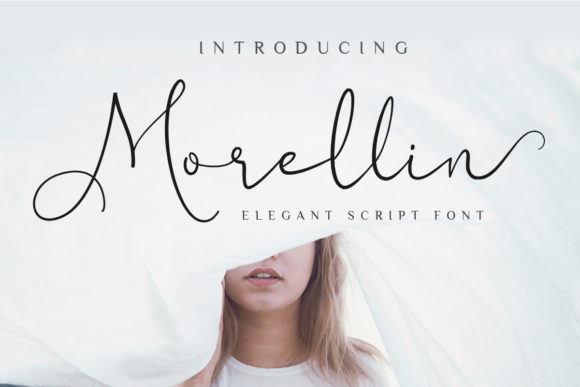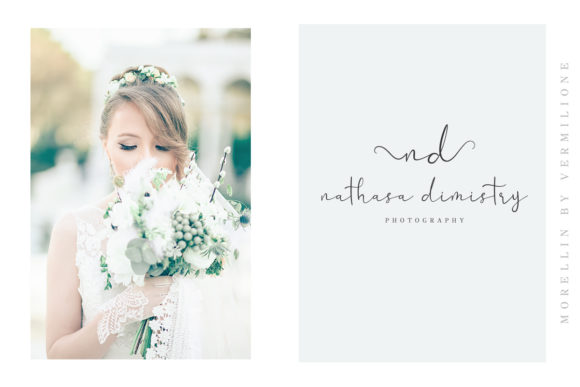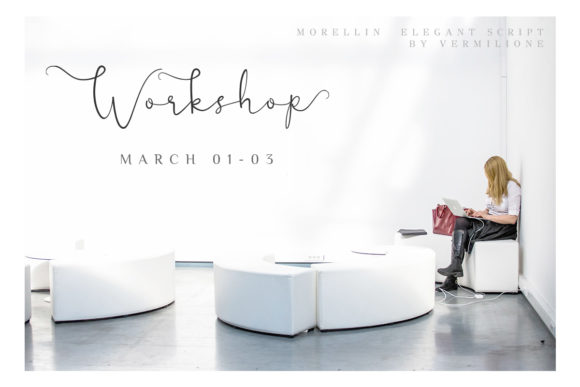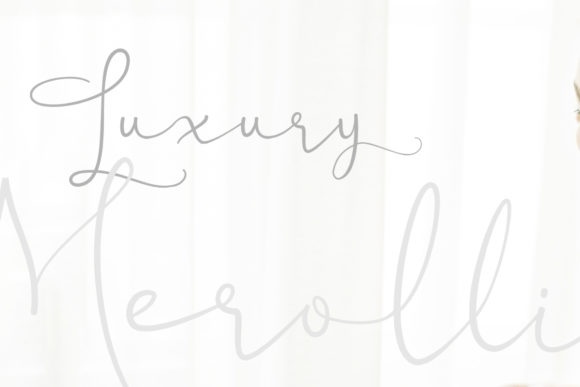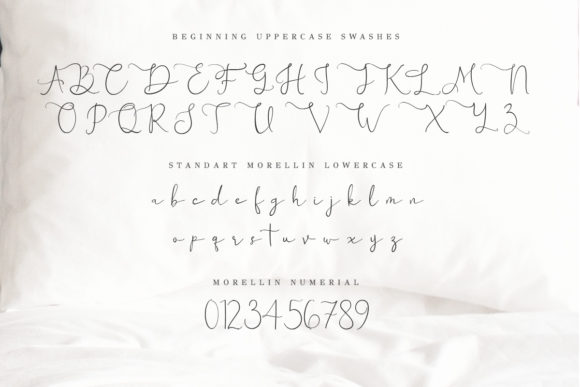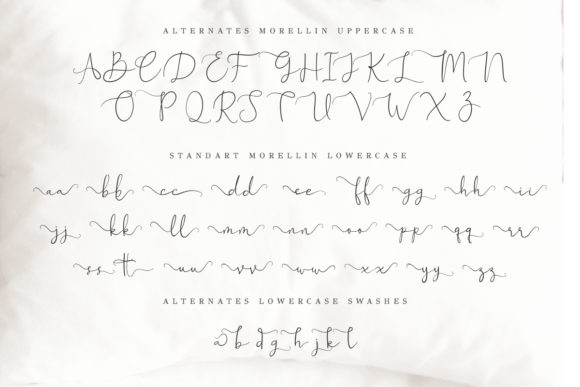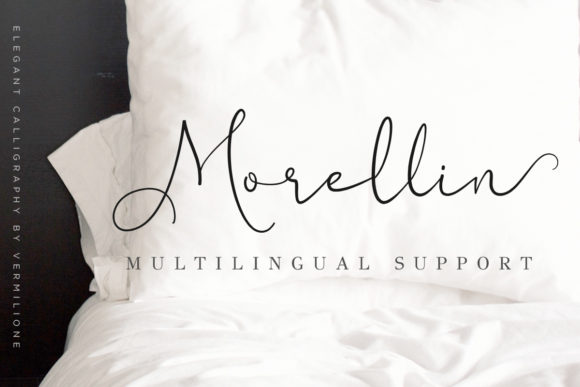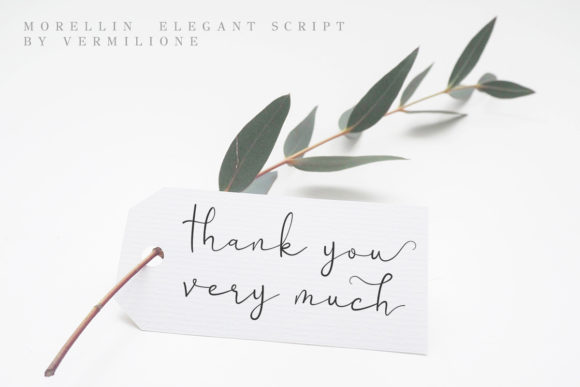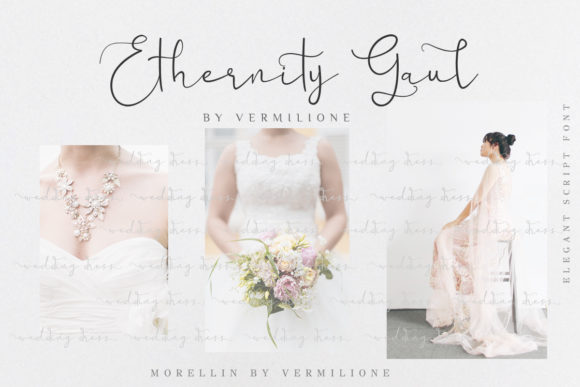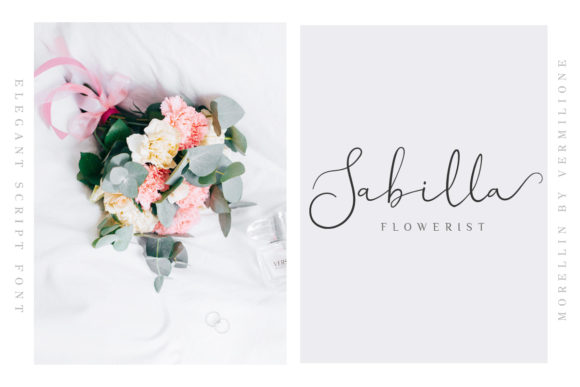
HomeScript FontsMorellin Font Script Fonts Morellin Font FacebookXPinterestWhatsApp Morellin Font Poster 2 Morellin Font Poster 3 Morellin Font Poster 4 Morellin Font Poster 5 Morellin Font Poster 6 Morellin Font Poster 7 Morellin Font Poster 8 Morellin Font Poster 9 Morellin Font Poster 10 Morellin Font Poster 11 Morellin Font Poster 12 Morellin Font Poster 13 Morellin Font Poster 14 Morellin Font Poster 15 Morellin Font Poster 16 About Morellin Font Morellin is a casual, yet elegant handwritten font with a modern feel. Fall in love with its sophisticated charm. DOWNLOAD NOW People also explored Christmas JIngle Font Yellow Bee Font Weekend Halloween Font Ageitha Waiters Font Peony Monogram Hastae Scabere Font Cute Nattalie Font Together Always Font 266 0 TagsMorellin Font Previous articleLorden Holen FontNext articleDiliya Font LEAVE A REPLY Cancel reply Comment: Please enter your comment! Name:* Please enter your name here Email:* You have entered an incorrect email address! Please enter your email address here Website: Save my name, email, and website in this browser for the next time I comment. Personal Use Free Dealisya Personal Use Free Read more about this font Adlanta Personal Use Free Read more about this font Farmhouse Christmas Personal Use Free Read more about this font Rakesly Personal Use Free Read more about this font BLOG Modern Sans-Serif Fonts That Brands Love in 2025 In 2025, modern sans-serif fonts remain a top choice for brands looking to project clarity, professionalism, and... Top 7 Google Fonts Alternatives for Faster and Privacy-Friendly Web Design (2025) Using Fonts in Digital Marketing: Tips to Strengthen Your Brand Identity Fonts That Capture the Spirit of New York City